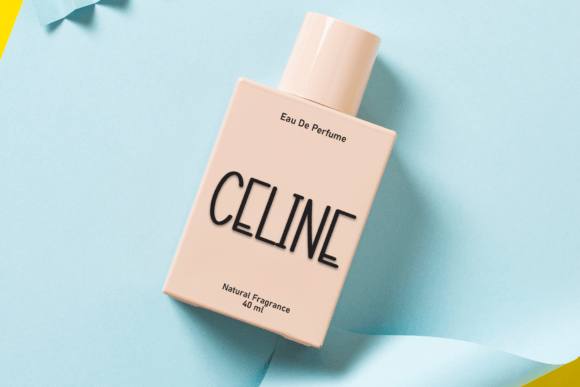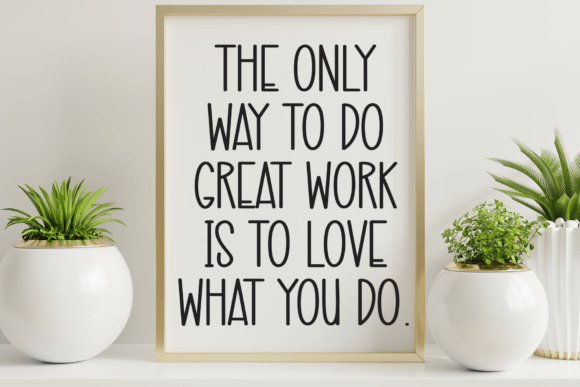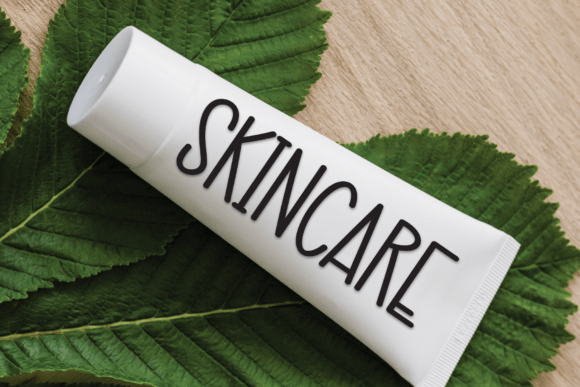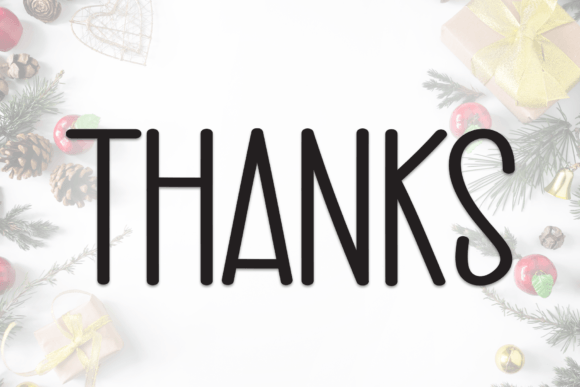
Merry Christmas Font
“MERRY CHRISTMAS” in an all caps handwritten font looks festive and joyful, with big, bold letters that give a personal and warm feel, perfect for holiday greetings. The style is playful yet clear, adding a touch of fun to your message.